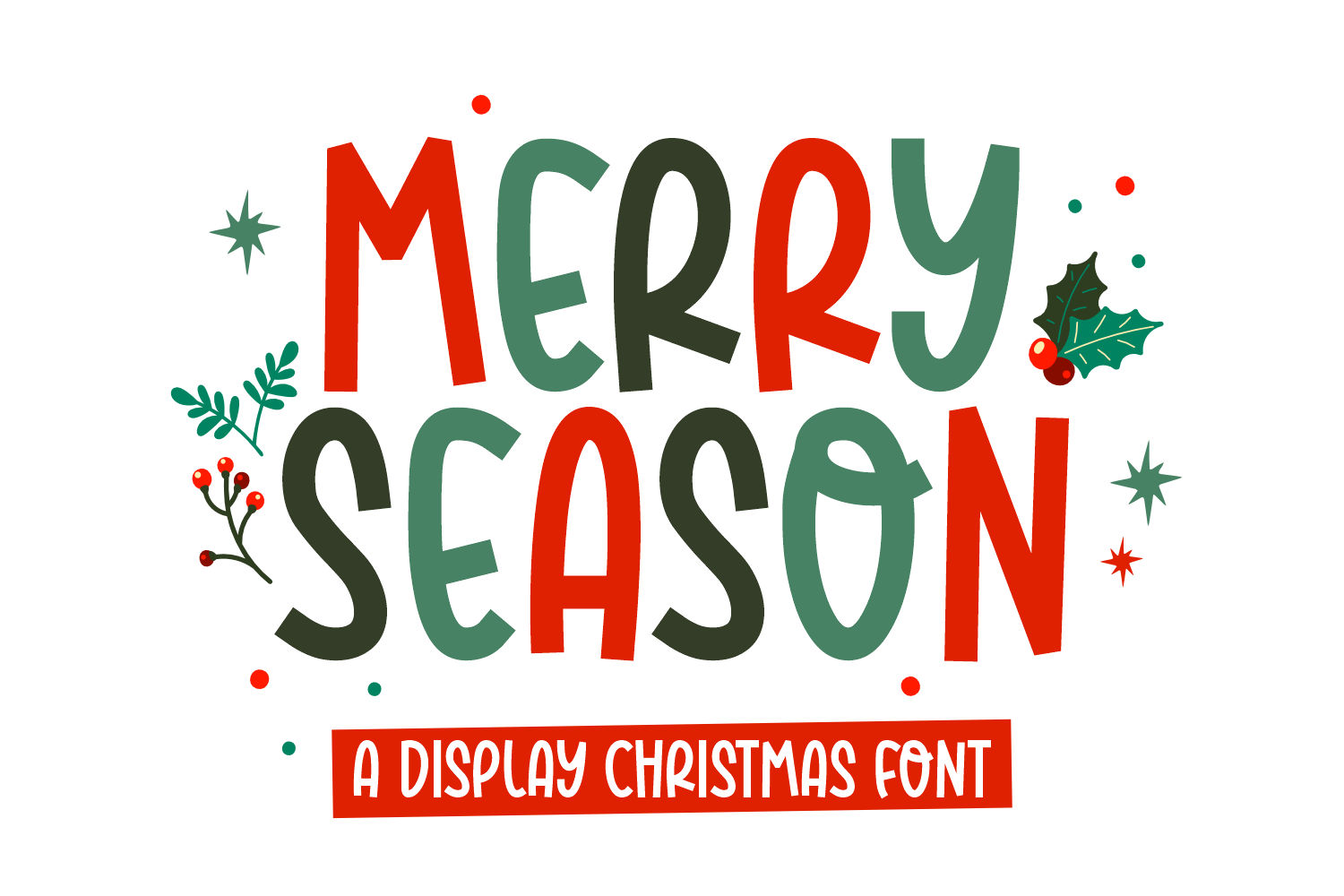
Merry Season - Christmas Font
Introducing the captivating Merry Season font, a fascinating display typeface imbued with the warmth and vibrancy of the holiday season. Its playful element coupled with a lovable aesthetic makes it an exceptional choice for infusing an extra dose of holiday happiness into your Christmas-themed projects. It is great for craft projects, invitations, greeting cards, logos, branding, social media, printed goods or anything that requires cute display lettering.